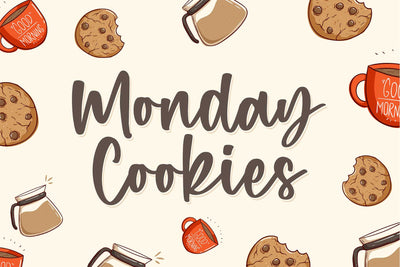
Monday Cookies - A Handwritten Script Font
Monday Cookies feels equally charming and elegant. It will elevate a wide range of design projects to the highest level, be it branding, headings, wedding designs, invitations, signatures, logos, labels, and much more!